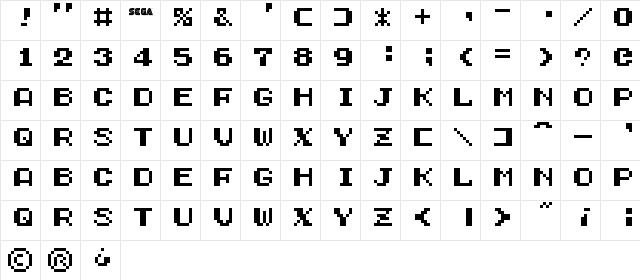
Service Games Oldskool Regular
| Foundry | :ck!: |
| Designer | ck! [freakyfonts] |
Design Context for Service Games Oldskool Typeface
Service Games Oldskool takes a measured approach to typography — its balanced proportions and neutral character make it a reliable workhorse for both digital and print work.